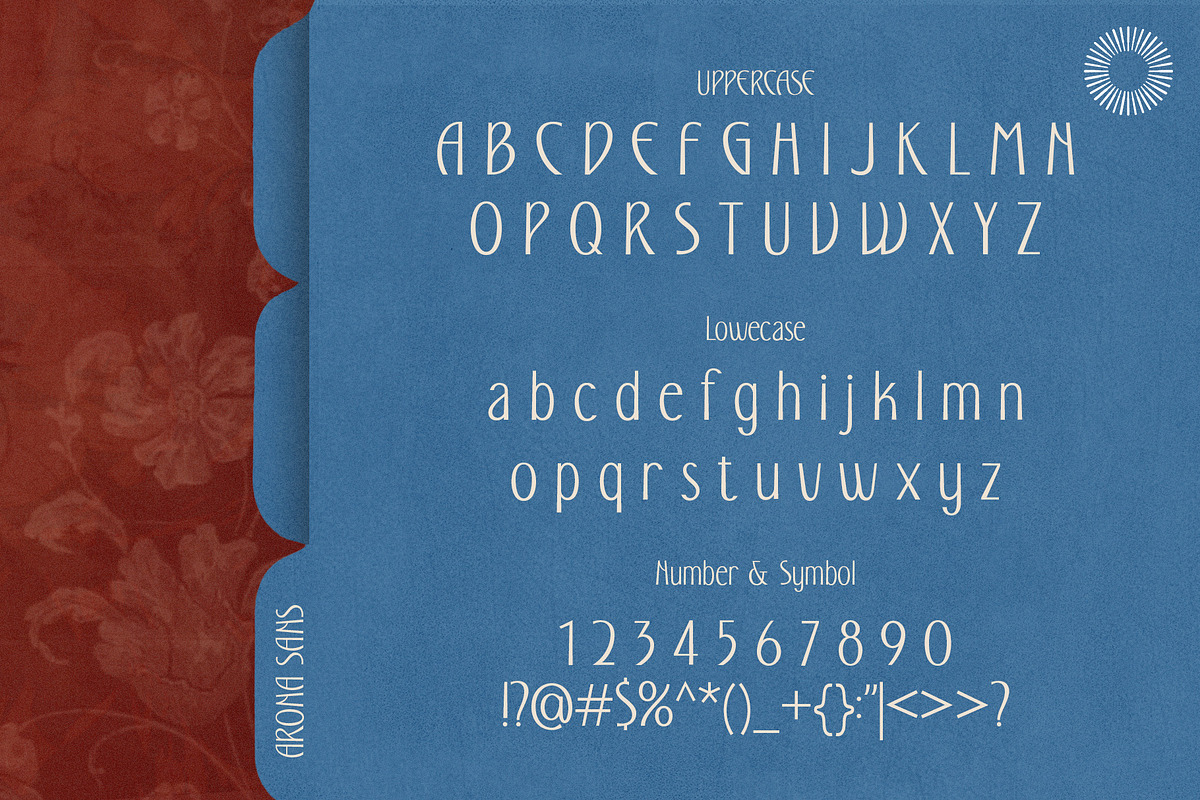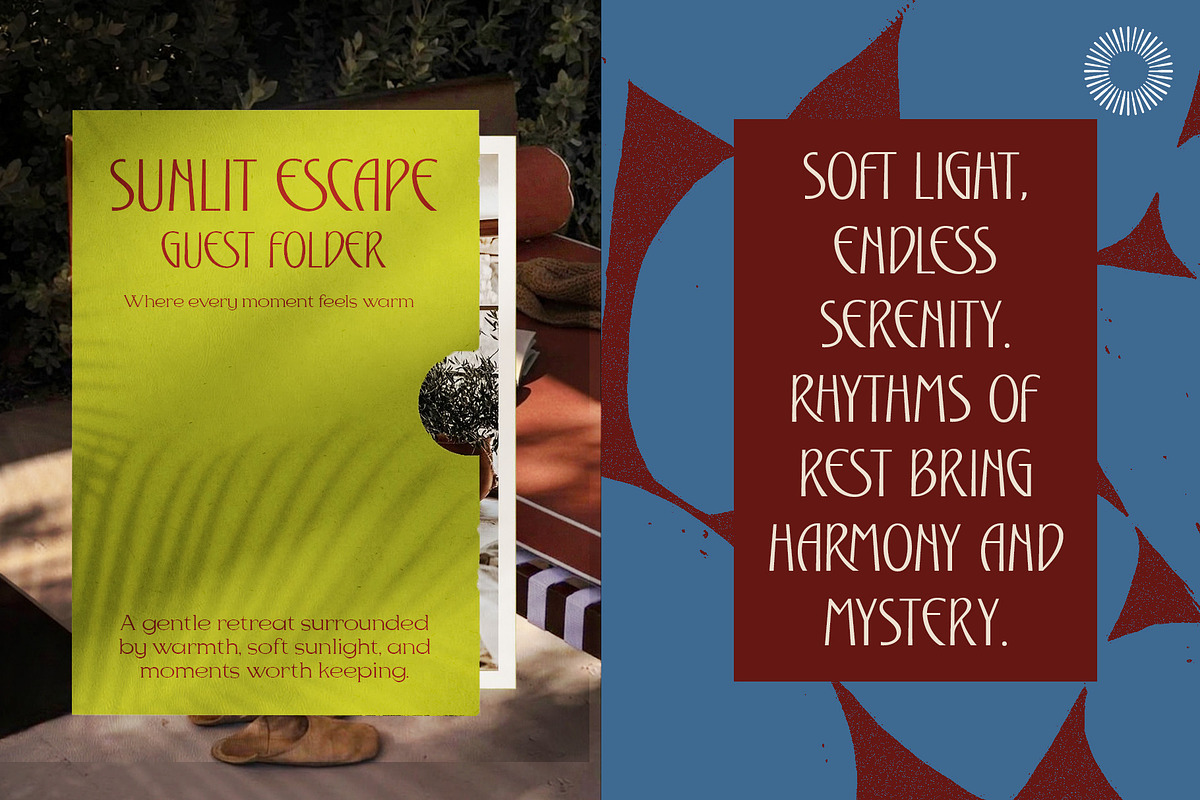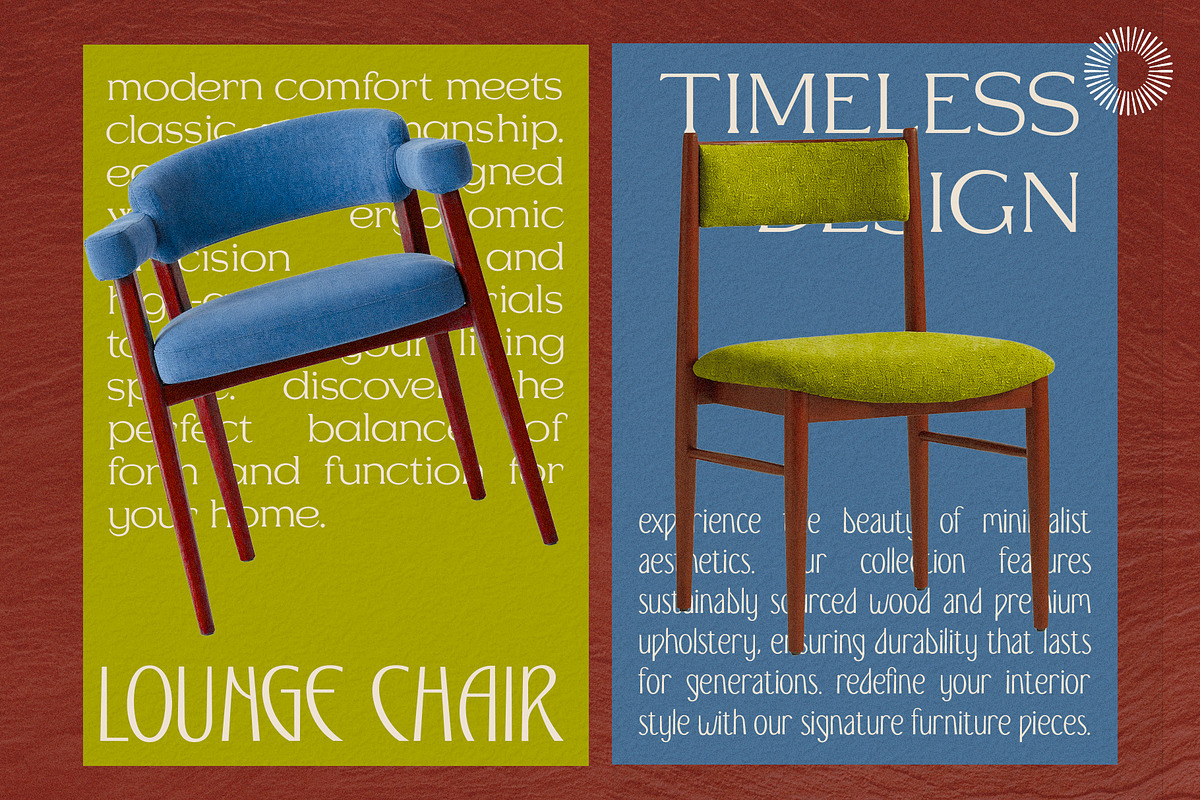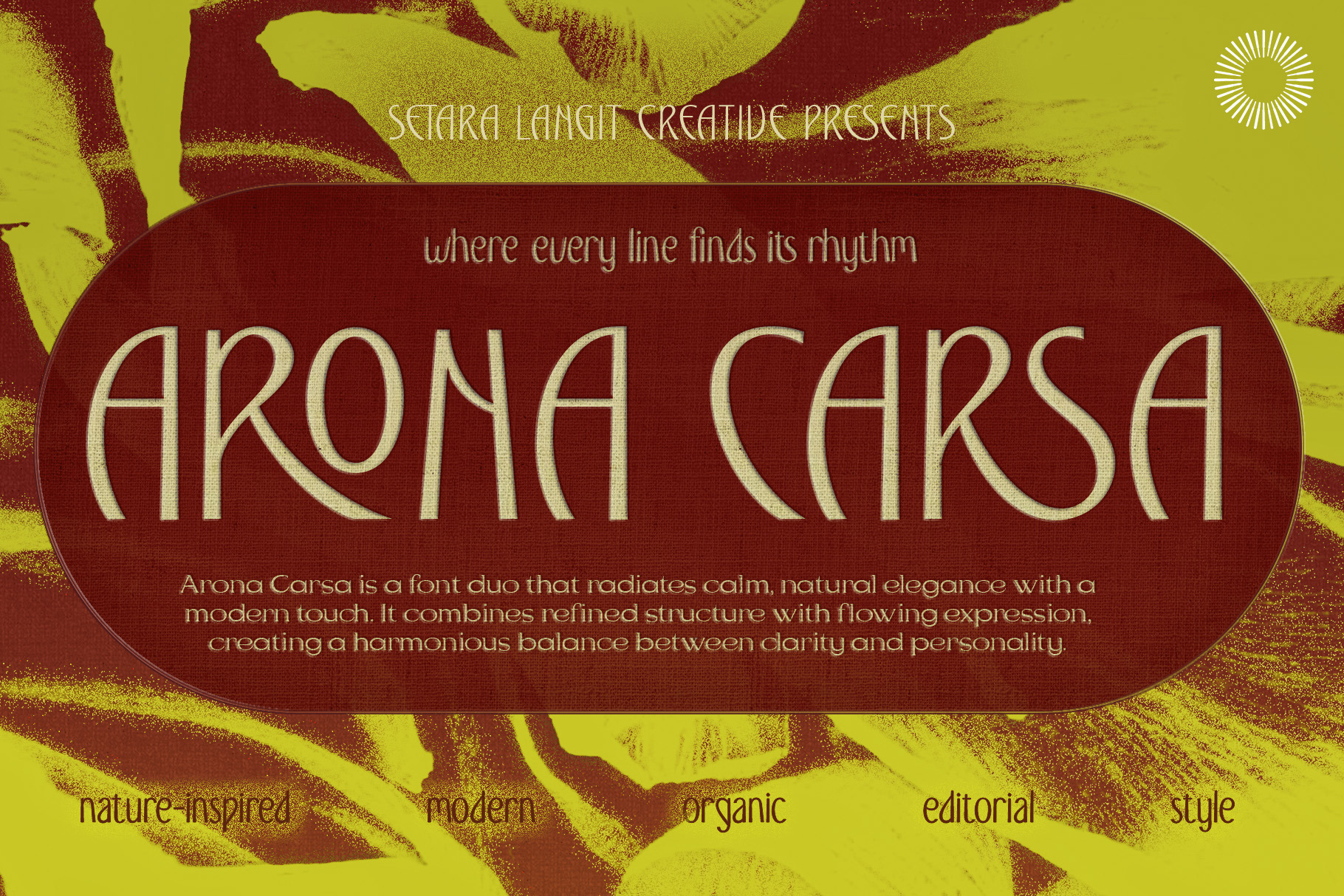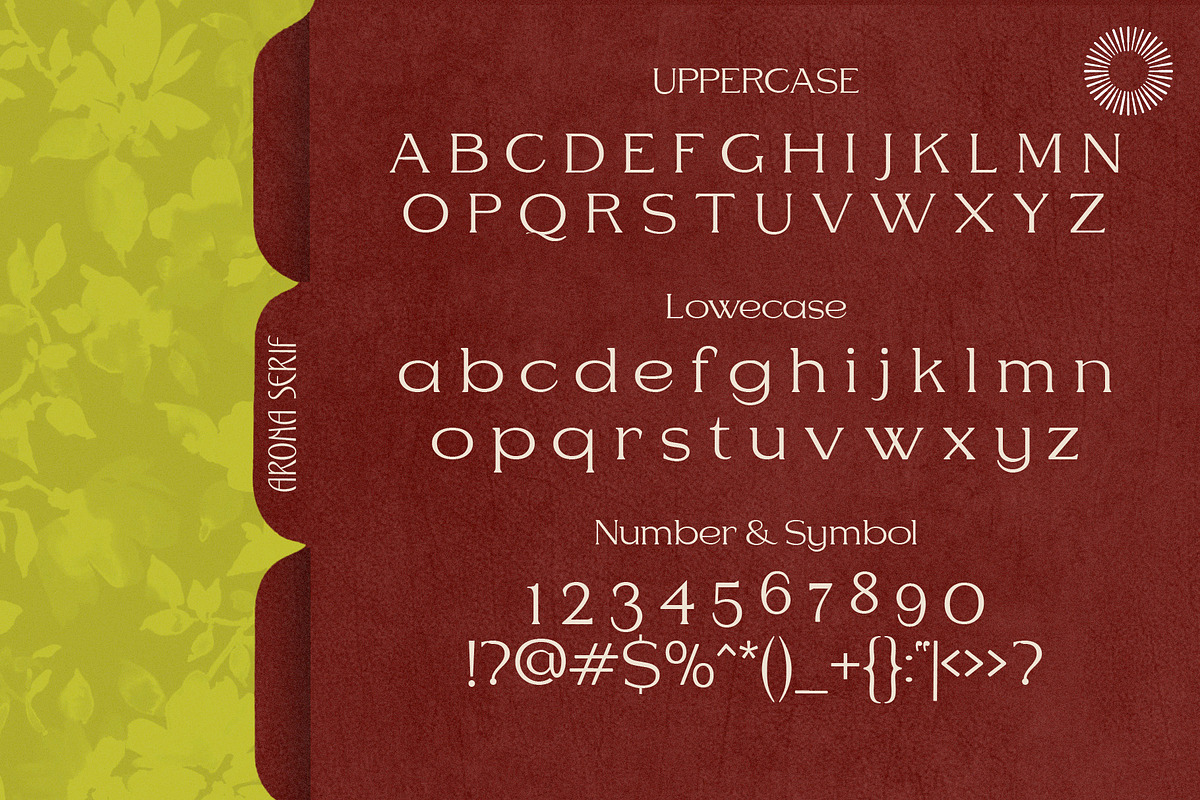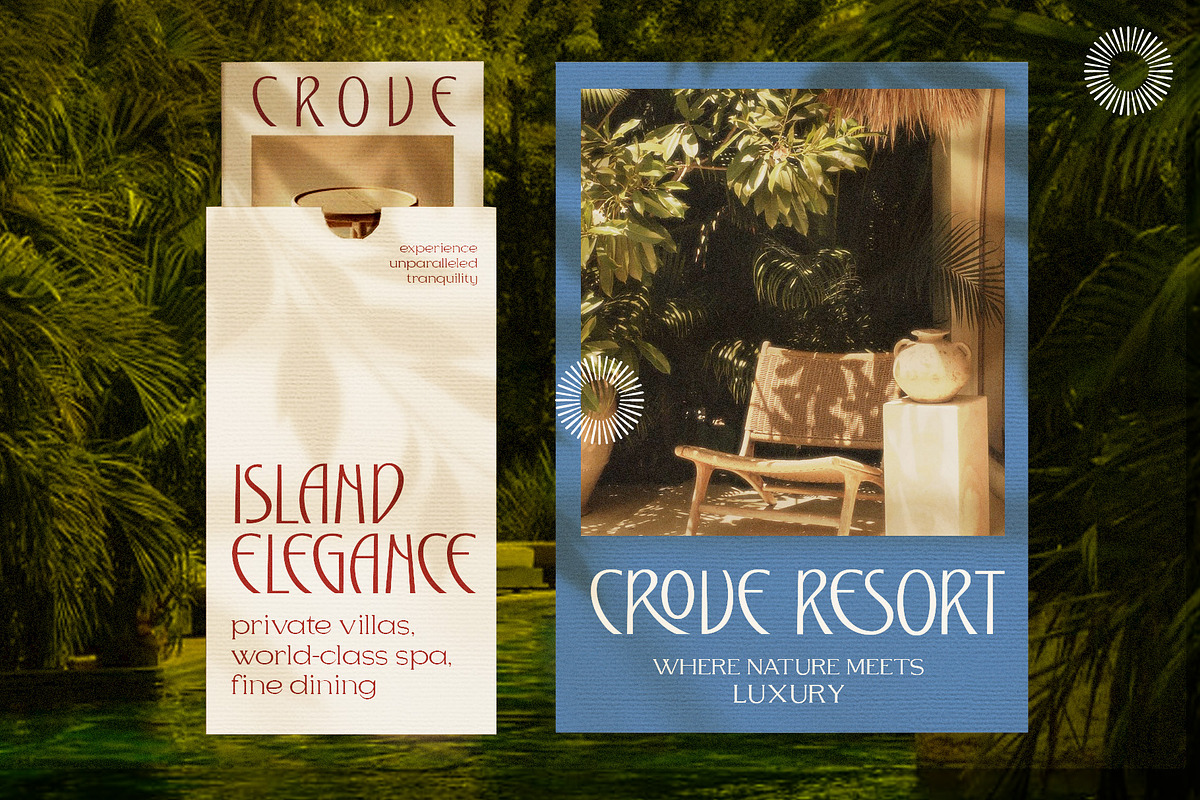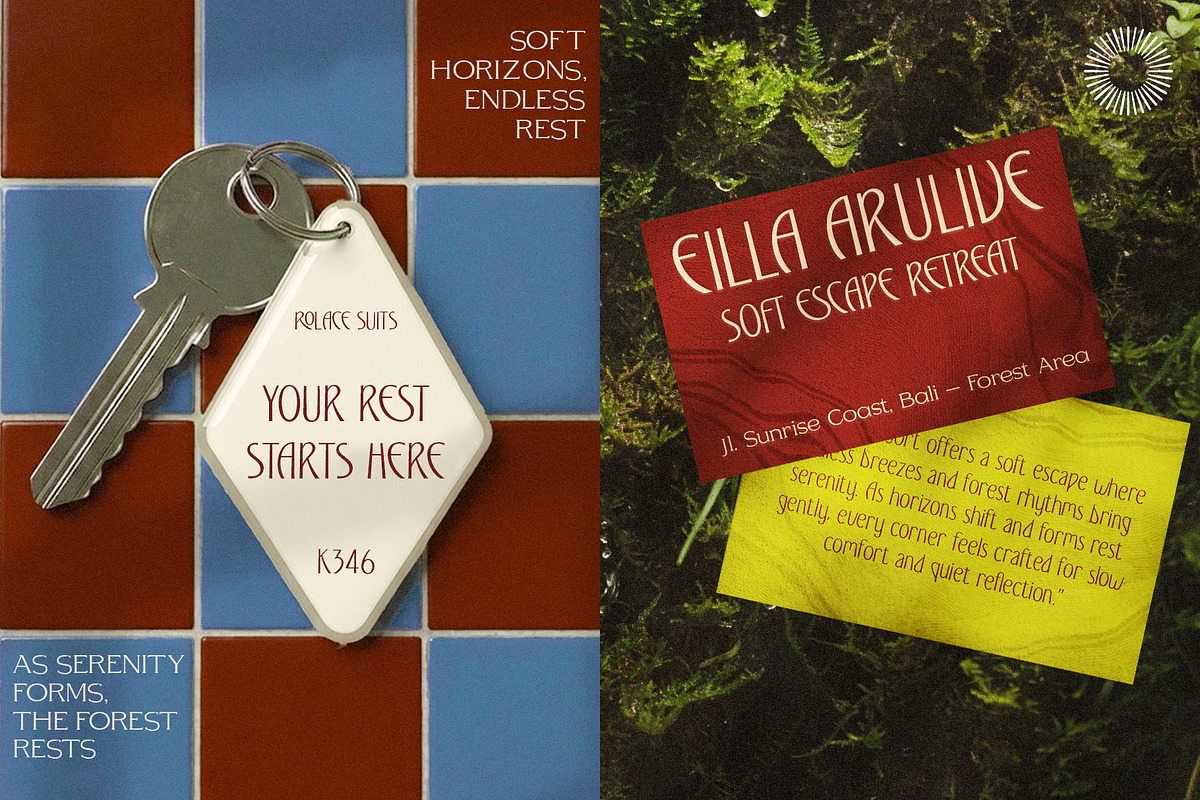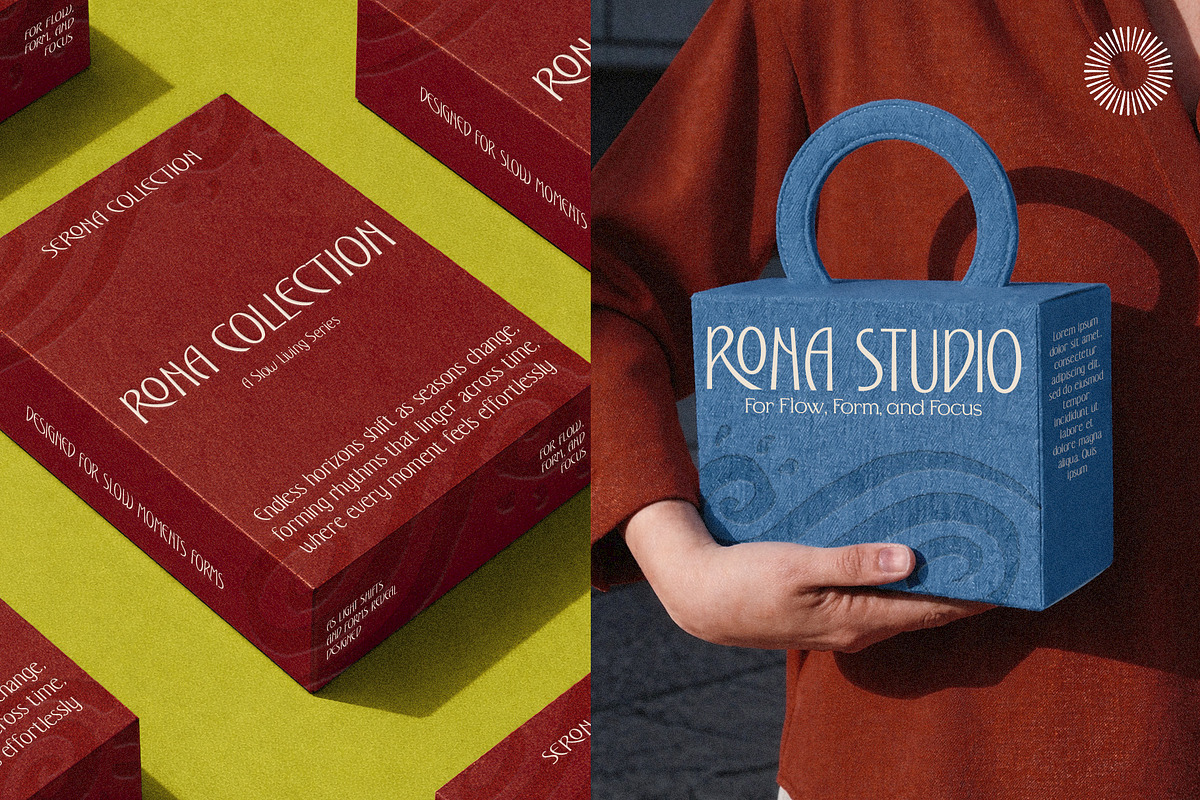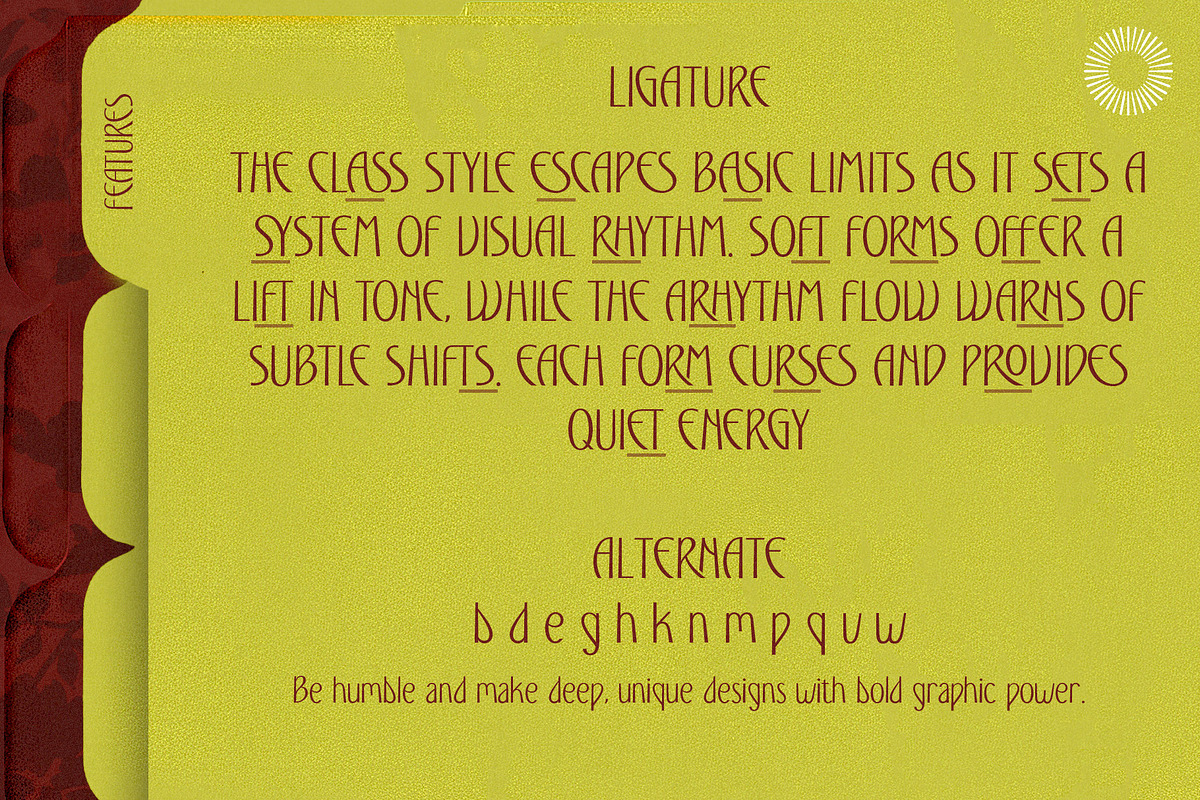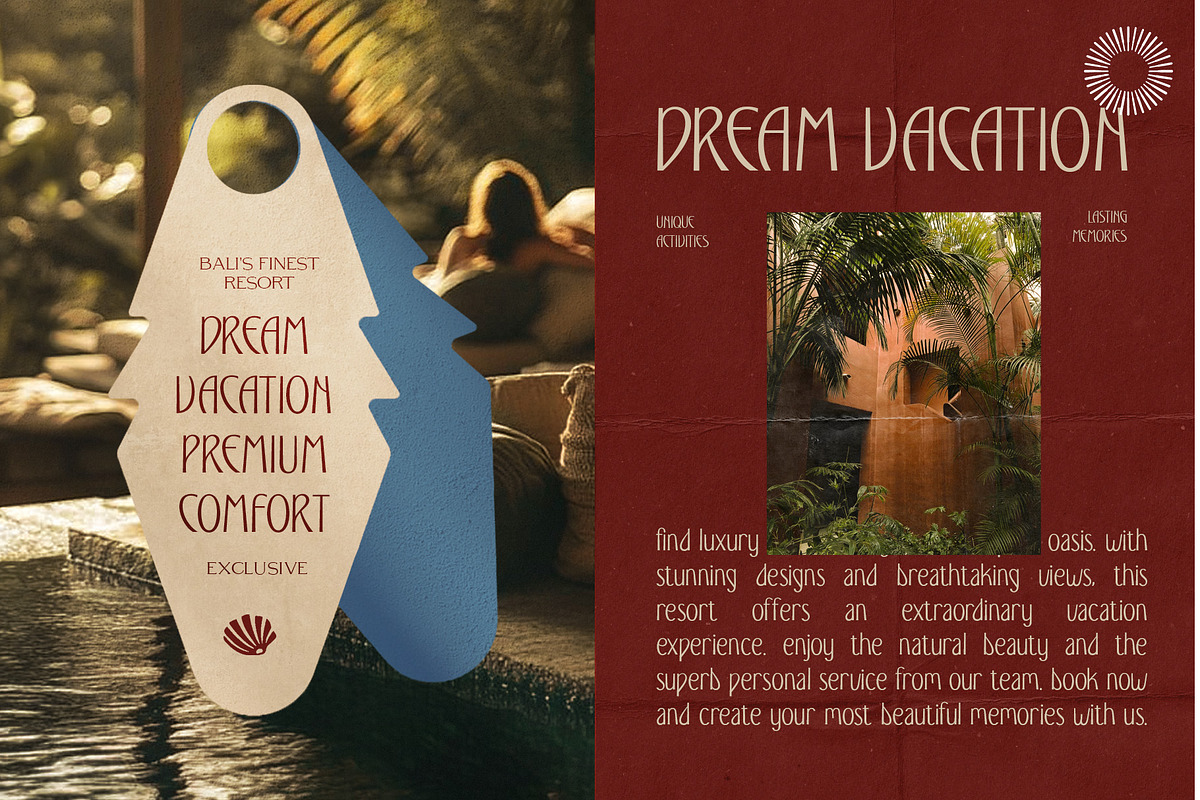
Arona Carsa - Font Duo
Arona Carsa is a modern font duo that combines a clean, refined sans serif with an elegant serif companion designed to create a balanced and versatile visual identity. The sans serif delivers clarity, simplicity, and a contemporary feel, making it perfect for modern branding. Paired with a graceful serif, it adds contrast and sophistication, bringing a subtle editorial touch to your designs. This combination allows you to create layouts that feel both minimal and expressive structured yet full of character.
What you get Sans serif font (uppercase, lowercase, numbers, punctuation) Serif font (uppercase, lowercase, numbers, punctuation) Ligatures and stylistic alternates Multilingual support Ready-to-use font duo pairing
Features Clean and modern sans serif design Elegant serif for contrast and hierarchy Balanced duo for branding and layouts Minimal yet expressive style